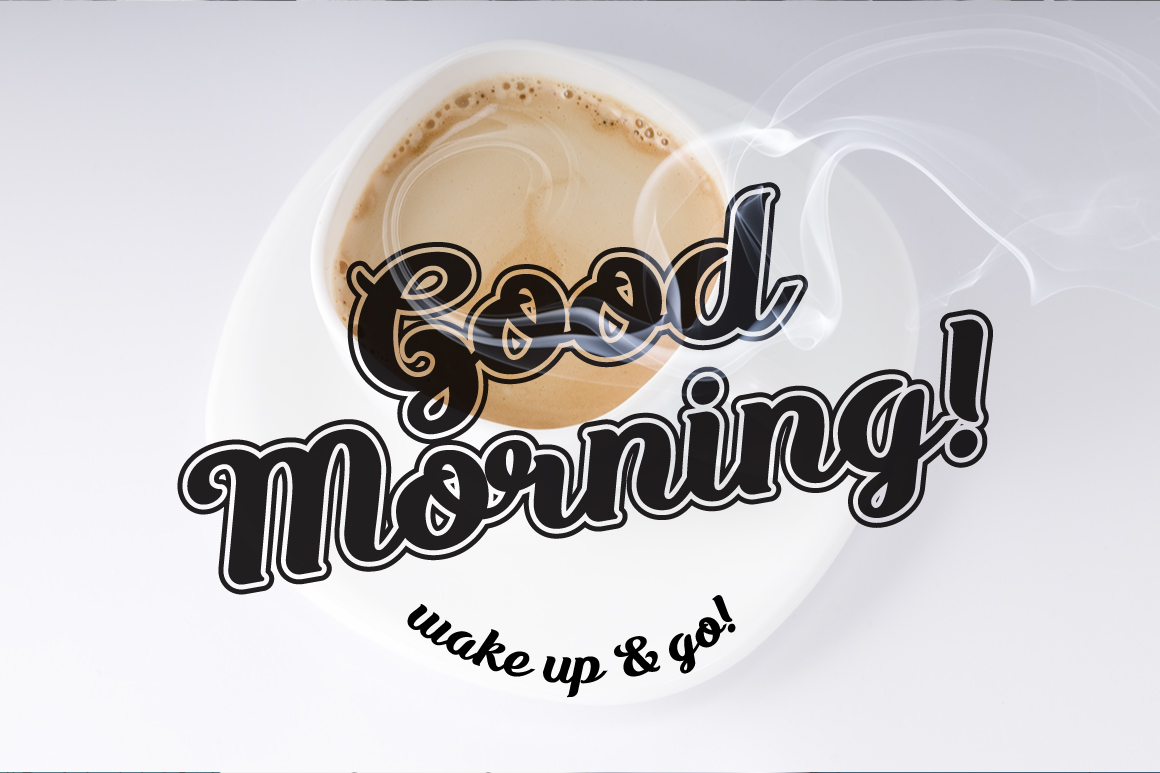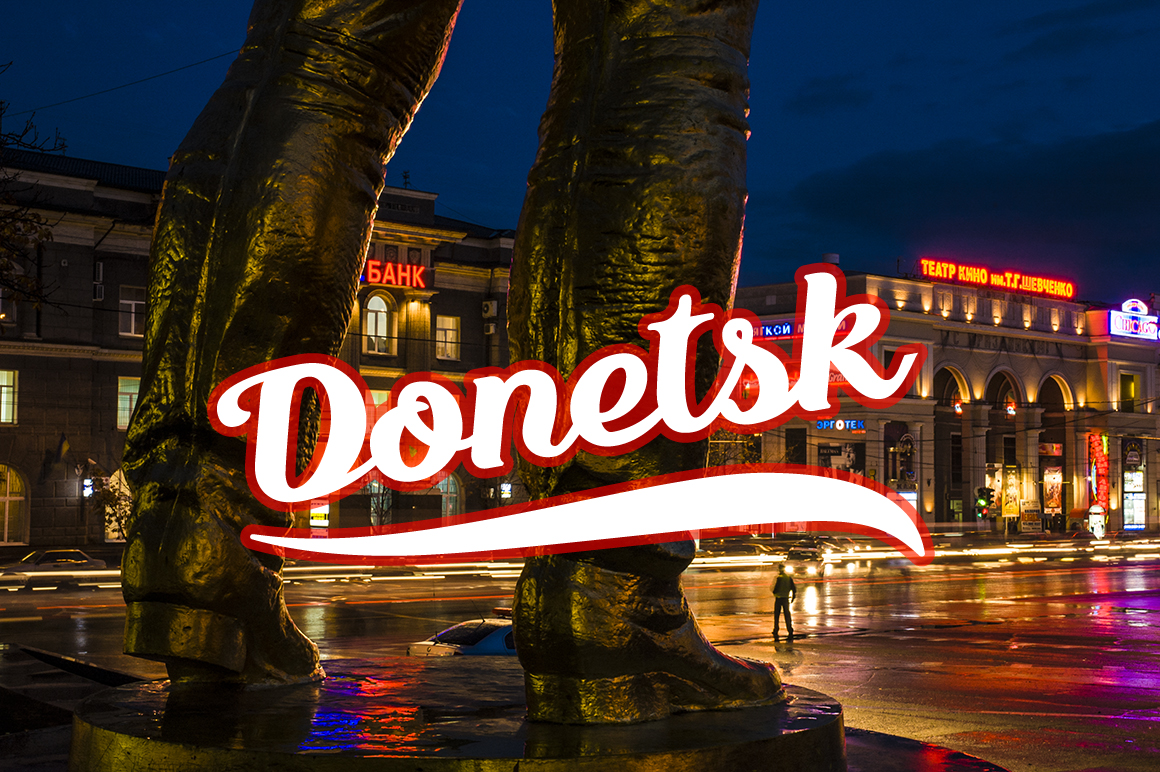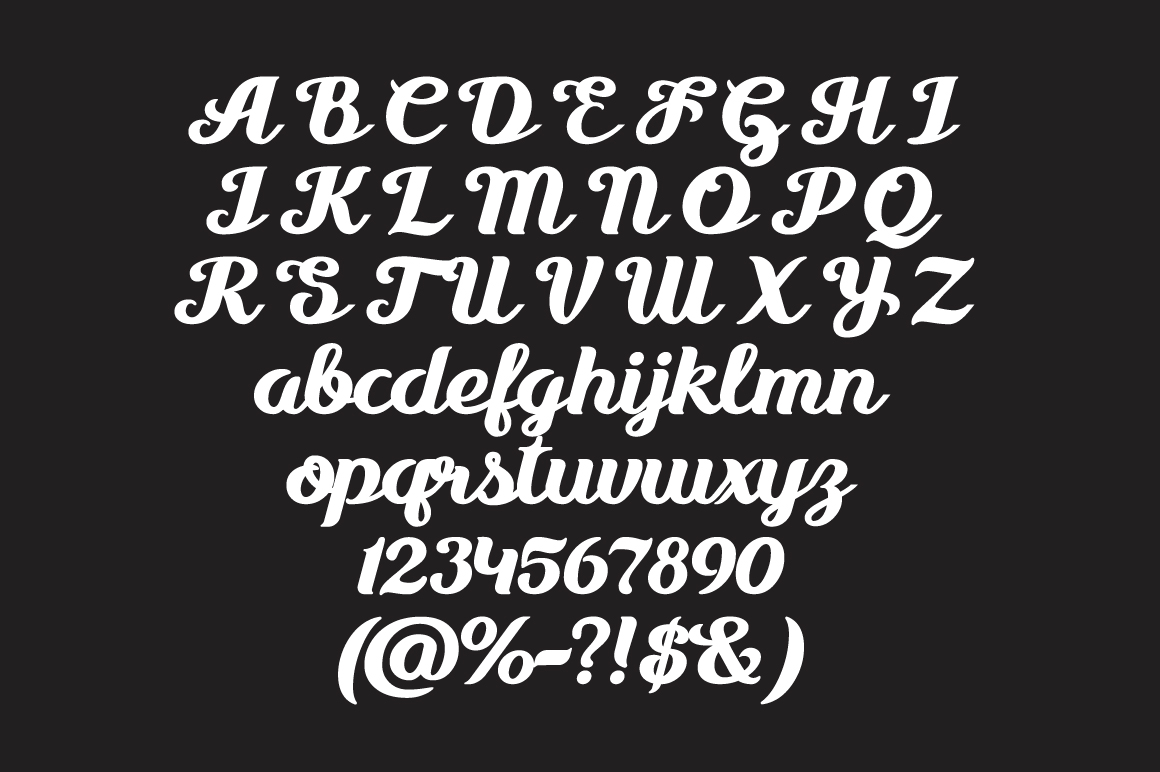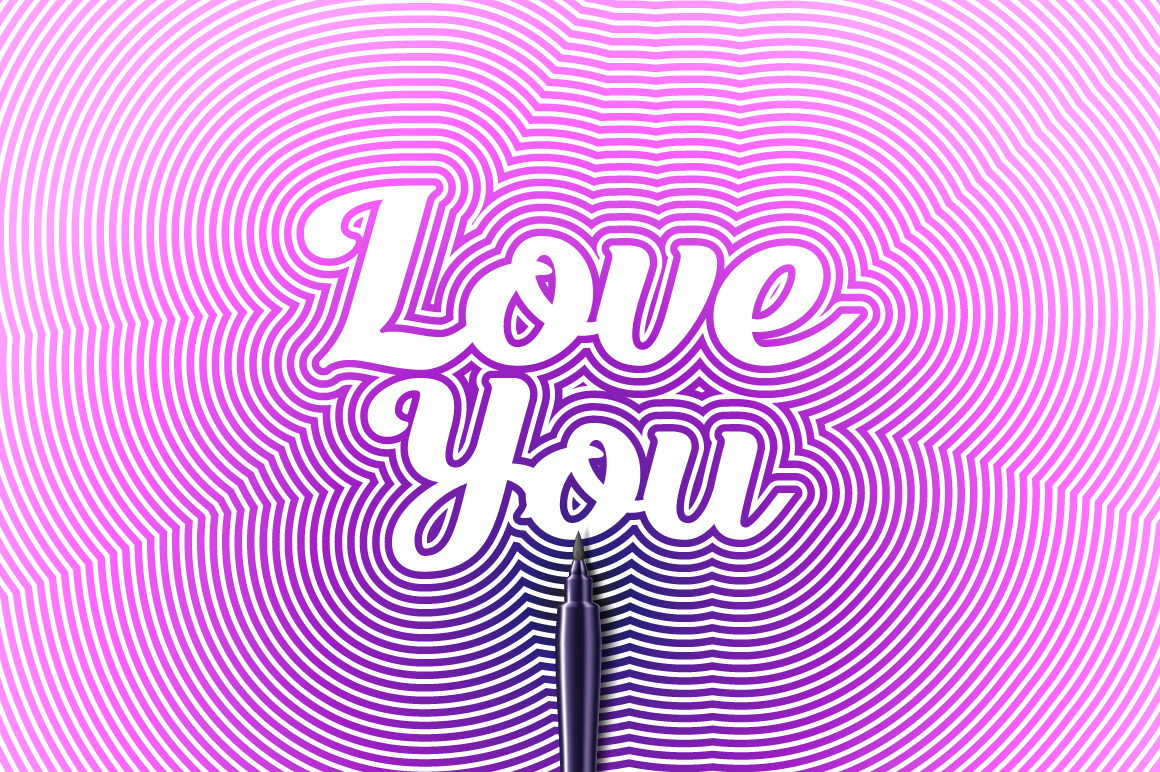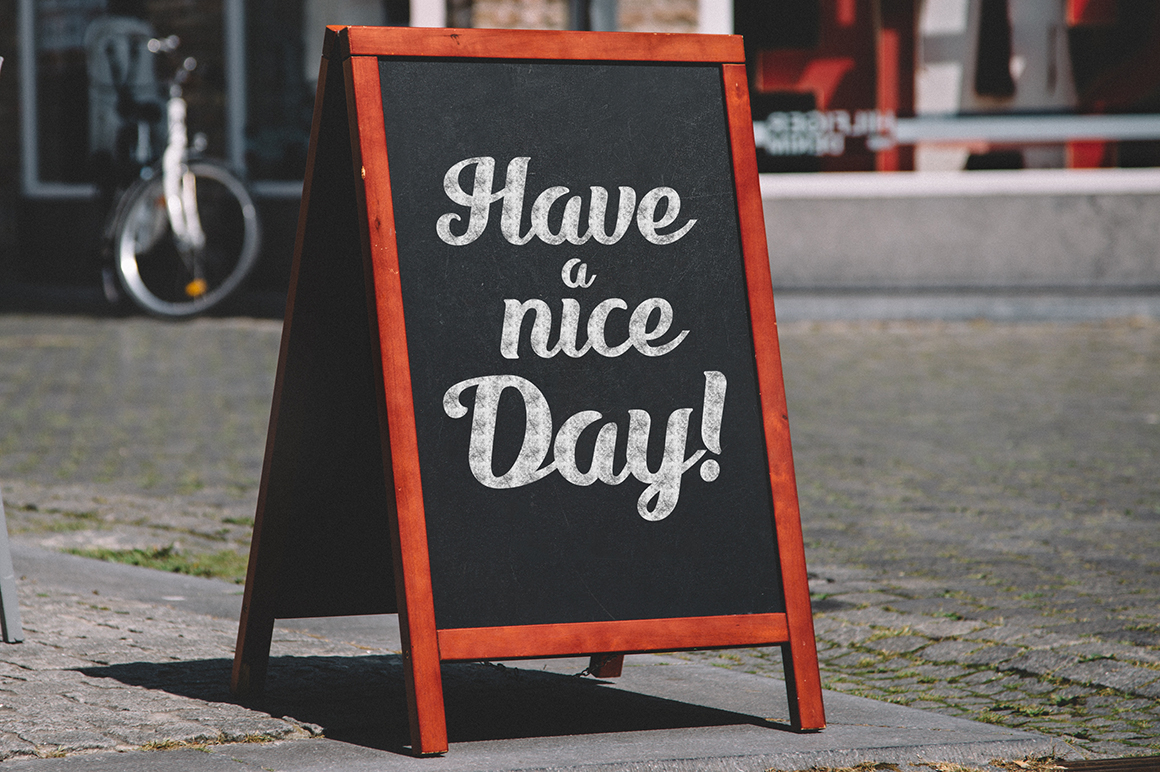
Awakening Font
Awakening is an elegant and carefully crafted script font, perfect for displays and headlines for a ton of different design projects. This smooth and legible font is handwritten and a truly stunning display option.